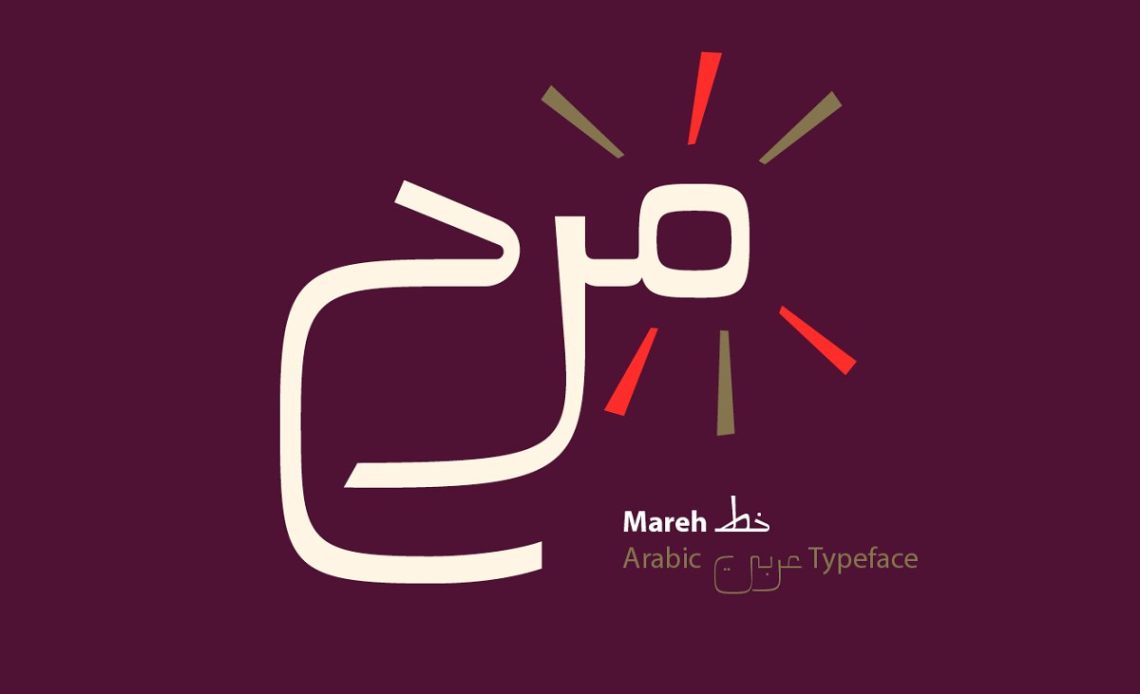
Introducing Mareh - the ultimate Arabic display font designed to elevate your design projects to new heights. This script font family is a work of art, created by the renowned designer, Mostafa Abasiry. Mareh, meaning 'Cheerful' in Arabic, is the perfect name for this font as it will surely bring joy and happiness to your design projects.
Mareh is the go-to font for anyone looking for the best fonts for logo typography. With its prolonged-squared letterform structure, this font family is an excellent choice for those looking for a unique and eye-catching design. Whether you're creating a logo, publication, packaging, or mobile application, Mareh has got you covered.
This font family consists of two weights - Regular and Bold, which provides you with more creative freedom to experiment with your designs. The Regular weight is perfect for a clean and simple look, while the Bold weight is ideal for a more daring and adventurous design.
Mareh is not just any Arabic display font. It is a font that inspires creativity and imagination. Its unique structure and design will capture the attention of your audience and leave a lasting impression. With Mareh, you can take your designs to the next level and create something truly exceptional.
In summary, Mareh is the best choice for anyone looking for a script font family that is versatile, captivating, and perfect for any creative project. So why wait? Download Mareh now and start creating stunning designs that will leave a lasting impression.